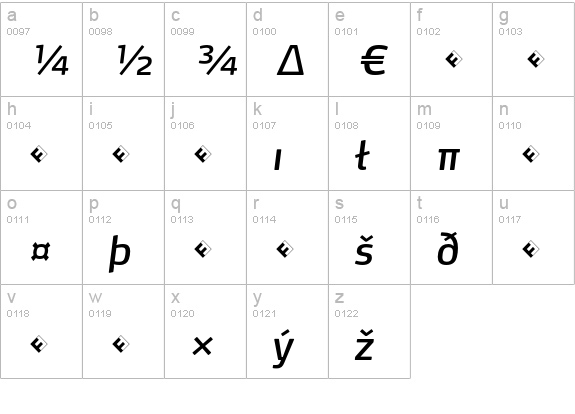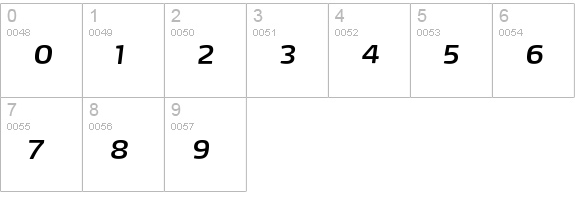
Introducing Max-BookItalicExpert font, a sleek and stylish typeface that exudes elegance and sophistication. With its delicate italics and expertly crafted design, Max-BookItalicExpert is perfect for adding a touch of refinement to any project. What sets Max-BookItalicExpert apart is not only its aesthetic appeal but also its accessibility. This premium font is available for free download at FontsMarket.com, allowing designers, creatives, and enthusiasts alike to easily incorporate its unique charm into their work. Whether you're working on a branding project, editorial design, or any creative endeavor, Max-BookItalicExpert offers versatility and flair that will elevate your designs to the next level. Embrace the beauty and functionality of this font today by downloading it for free at FontsMarket.com.